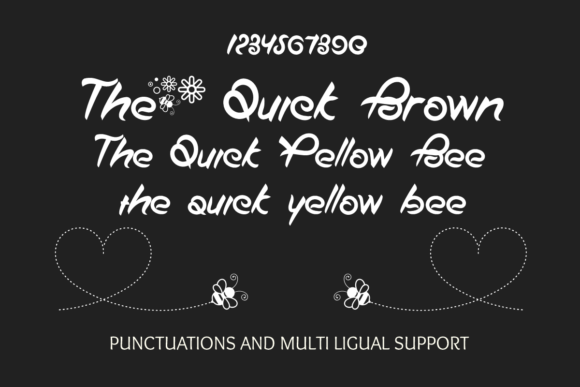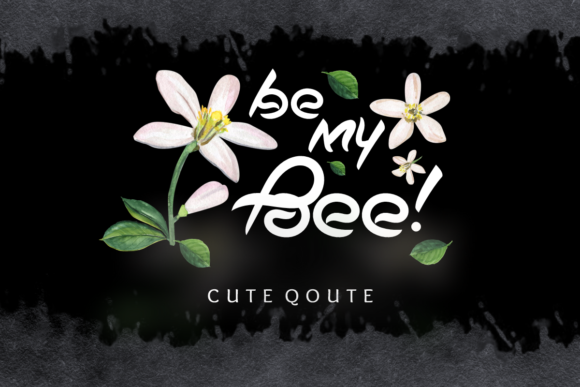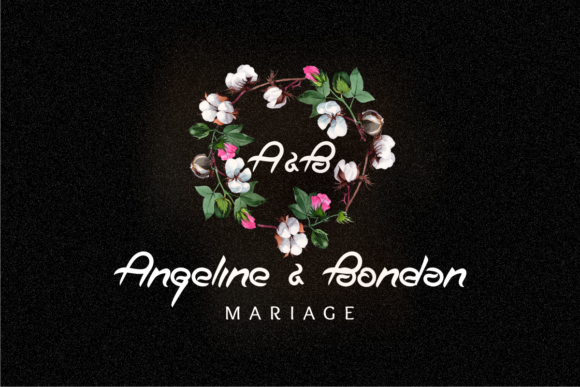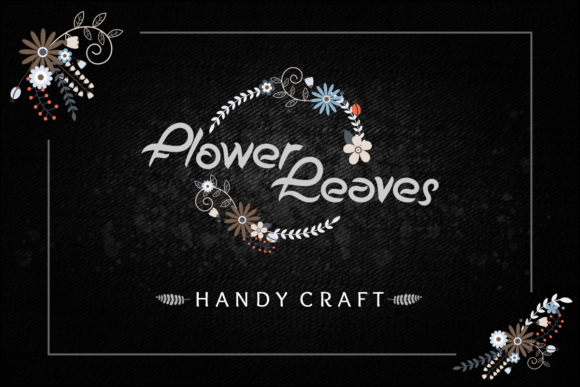
Bee Long Font: The Sweetest Addition to Your Design Collection
Are you on the hunt for a font that’s as charming as it is versatile? Look no further than Bee Long Font, a delightful display font that’s sure to become a favorite in your design arsenal. With its playful, handcrafted design, Bee Long is perfect for adding a touch of whimsy to any project.
A Font that’s as Sweet as Honey
Bee Long Font is a carefully crafted display font that’s designed to bring a smile to your face. Its natural charm makes it appear wonderfully down-to-earth, readable, and incredibly versatile. Whether you’re working on a busy background or a standalone headline, Bee Long is sure to shine. Its unique character set includes a range of glyphs, cute bee illustrations, and ornaments that can be accessed with ease, thanks to its PUA encoding.
What Makes Bee Long Font So Special?
So, what sets Bee Long Font apart from other fonts on the market? Here are just a few of its standout features:
- PUA Encoding: Bee Long Font is PUA encoded, which means you can access all of the glyphs, cute bee illustrations, and ornaments with ease. No more tedious searching for the perfect character – with Bee Long, you can get exactly what you need in a snap.
- Special Shortcut Ornaments: This font also features a wealth of special shortcut keys that make it easy to get the ornaments you need. Whether you’re a seasoned designer or just starting out, these shortcuts will save you time and frustration.
- Versatility: Bee Long Font is incredibly versatile, making it perfect for a wide range of design projects. Use it for headlines, titles, and more – it’s sure to add a touch of personality to any piece.
Bee Long Font is a dream come true for designers and crafters who are looking for a font that’s both fun and functional. Whether you’re working on a commercial project or a personal craft, this font is sure to bring a touch of whimsy and charm. Here are just a few ways you can use Bee Long Font:
- Signs and Headlines: Use Bee Long Font to create eye-catching signs and headlines that are sure to grab attention.
- Party Invitations: Add a touch of sweetness to your party invitations with Bee Long Font – it’s perfect for baby showers, birthday parties, and more.
- Crafting Projects: Bee Long Font is a great addition to any crafting project, from scrapbooking to card making.
Tips for Using Bee Long Font
Here are a few tips for getting the most out of Bee Long Font:
- Experiment with Sizes: Bee Long Font looks great in a range of sizes, from small and delicate to large and bold. Experiment with different sizes to find the perfect fit for your project.
- Pair it with Other Fonts: Bee Long Font pairs perfectly with a range of other fonts, from simple sans serifs to more elaborate script fonts. Try pairing it with a contrasting font to add visual interest to your design.
- Don’t be Afraid to Get Creative: Bee Long Font is a versatile font that’s perfect for a wide range of design projects. Don’t be afraid to get creative and try new things – it’s a great way to discover new uses for this amazing font.